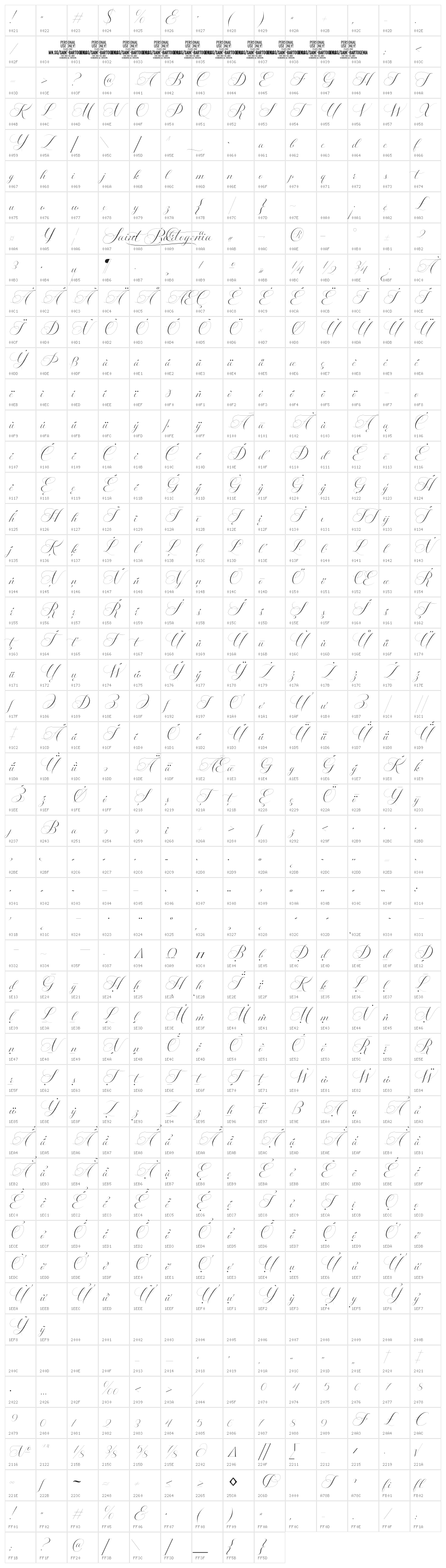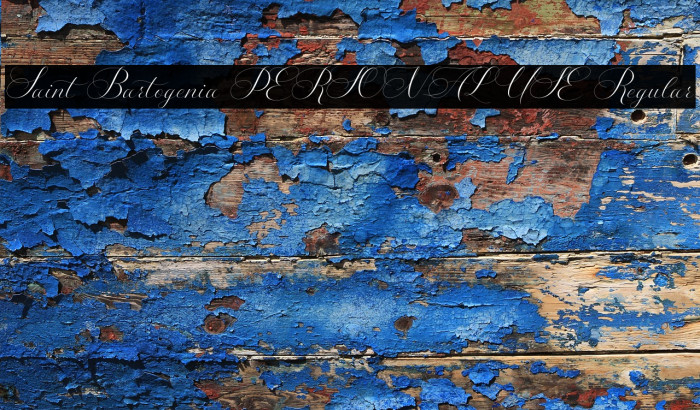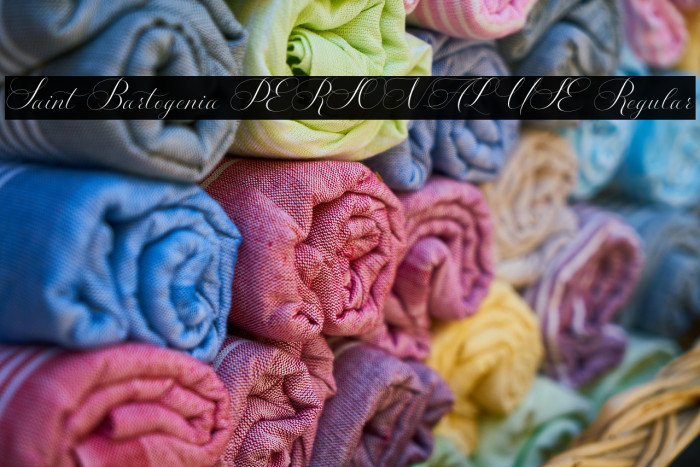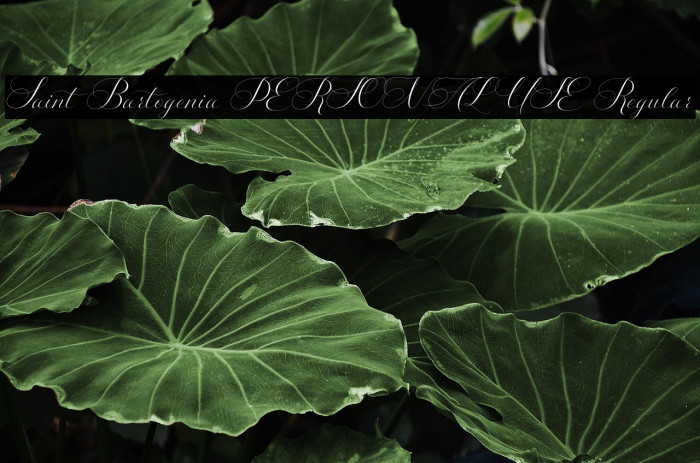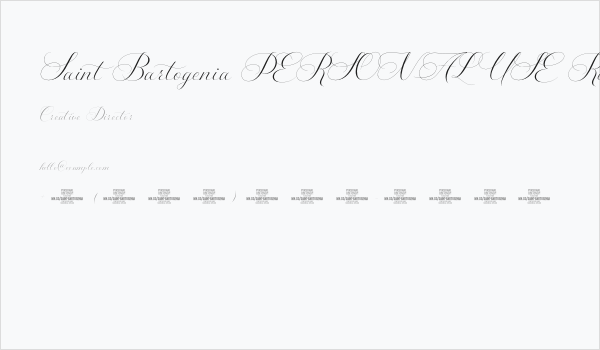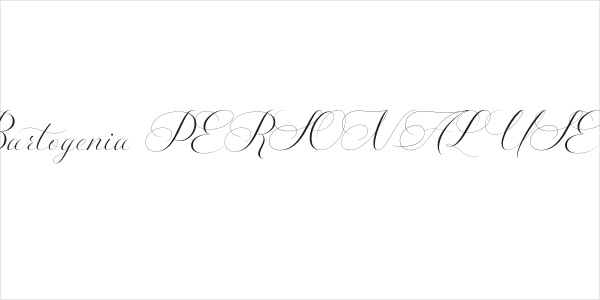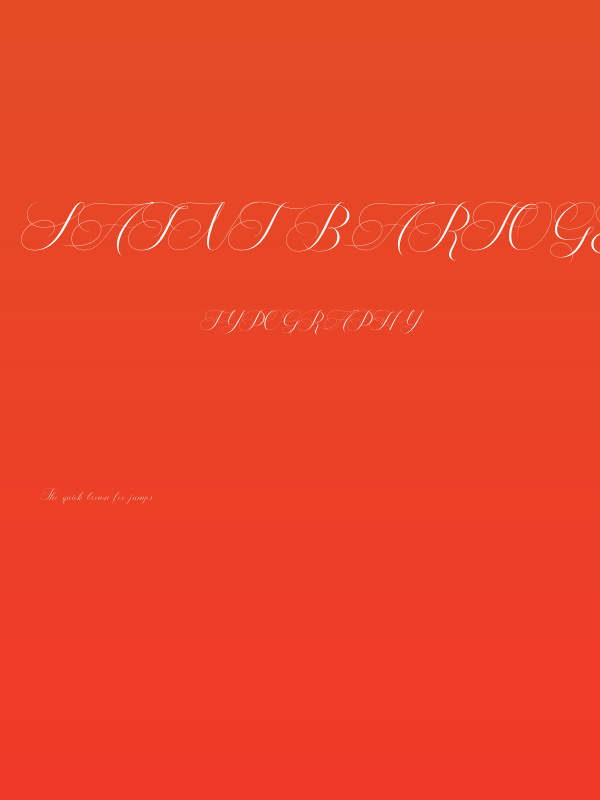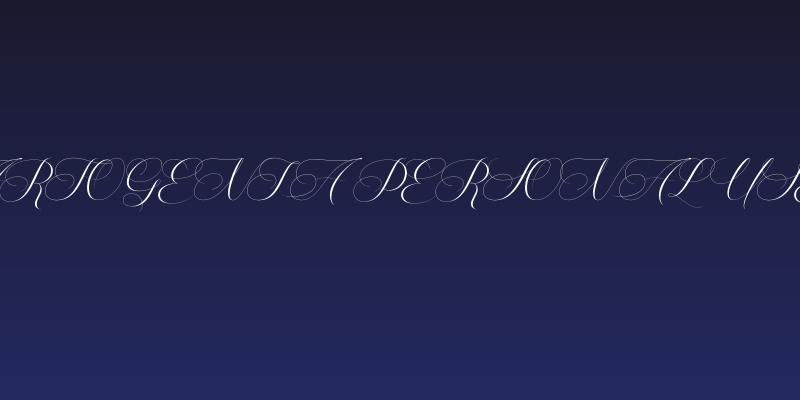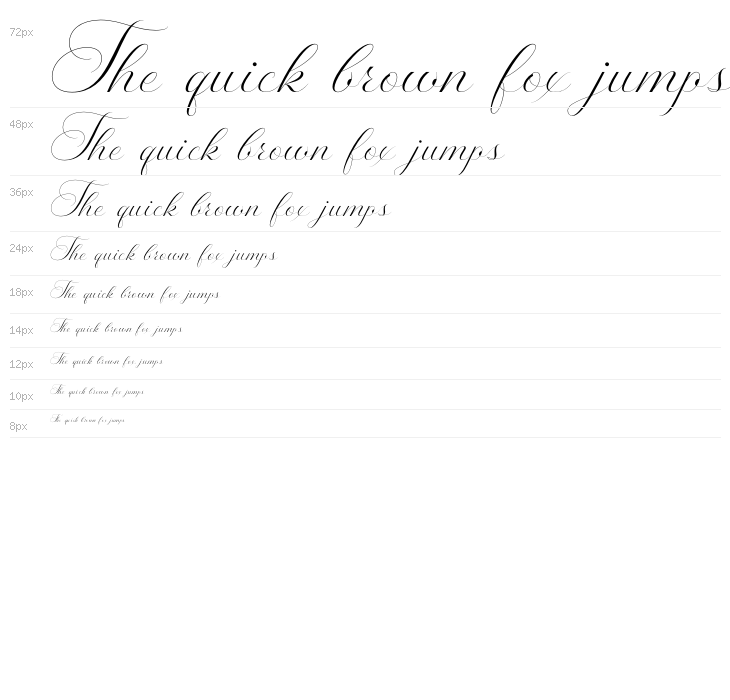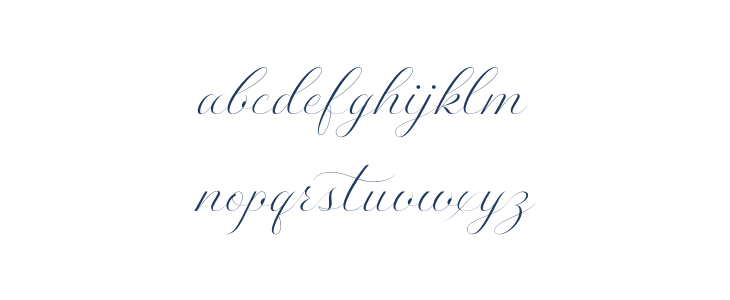
Saint Bartogenia PERSONAL USE Regular Font
Saint Bartogenia PERSONAL USE Regular Description
This elegant script font features beautifully flowing, interconnected characters that exude sophistication and grace. The uppercase letters are adorned with intricate swashes and flourishes, adding a touch of luxury and refinement. The lowercase letters maintain a smooth, continuous flow, enhancing the font's overall fluidity. The numerals and special characters are designed with the same attention to detail, ensuring a cohesive and harmonious appearance. This font is perfect for projects that require a touch of elegance and class.
| Proposed Projects | Ideal for wedding invitations, luxury branding, elegant stationery, and high-end product packaging. |